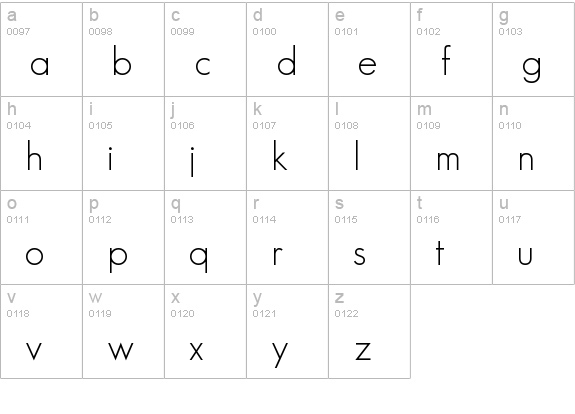
GeosansLight Font Details
GeosansLight is a modern and stylish sans-serif font that exudes simplicity and sophistication. With its clean lines and sleek design, this font is perfect for a wide range of design projects, from branding to editorial design. The light weight of the font gives it a delicate and elegant appearance, making it ideal for adding a touch of sophistication to any project. What makes GeosansLight even more appealing is that it is completely free to download at FontsMarket.com. This means that you can easily access this versatile font and use it in your projects without any cost. Whether you are working on a personal project or a professional design, GeosansLight is a great choice for adding a modern and stylish touch to your work. Download it today and elevate your designs with this beautiful font.